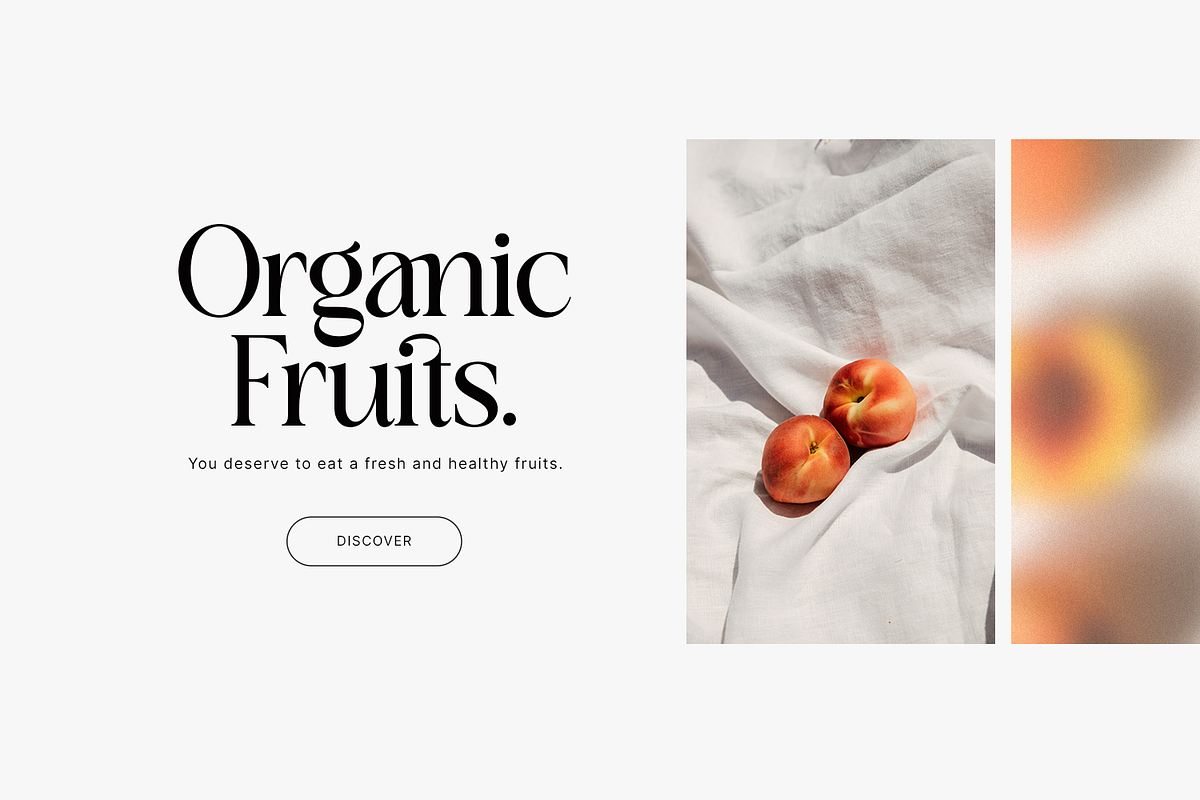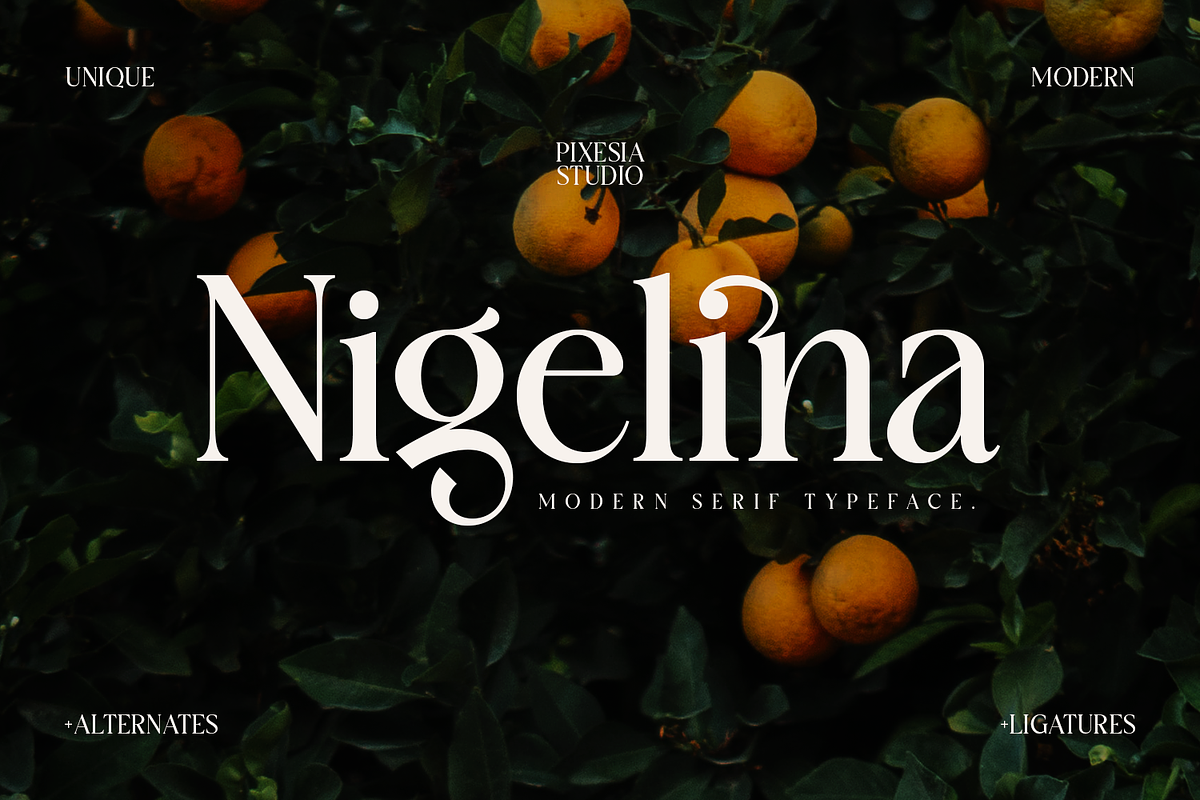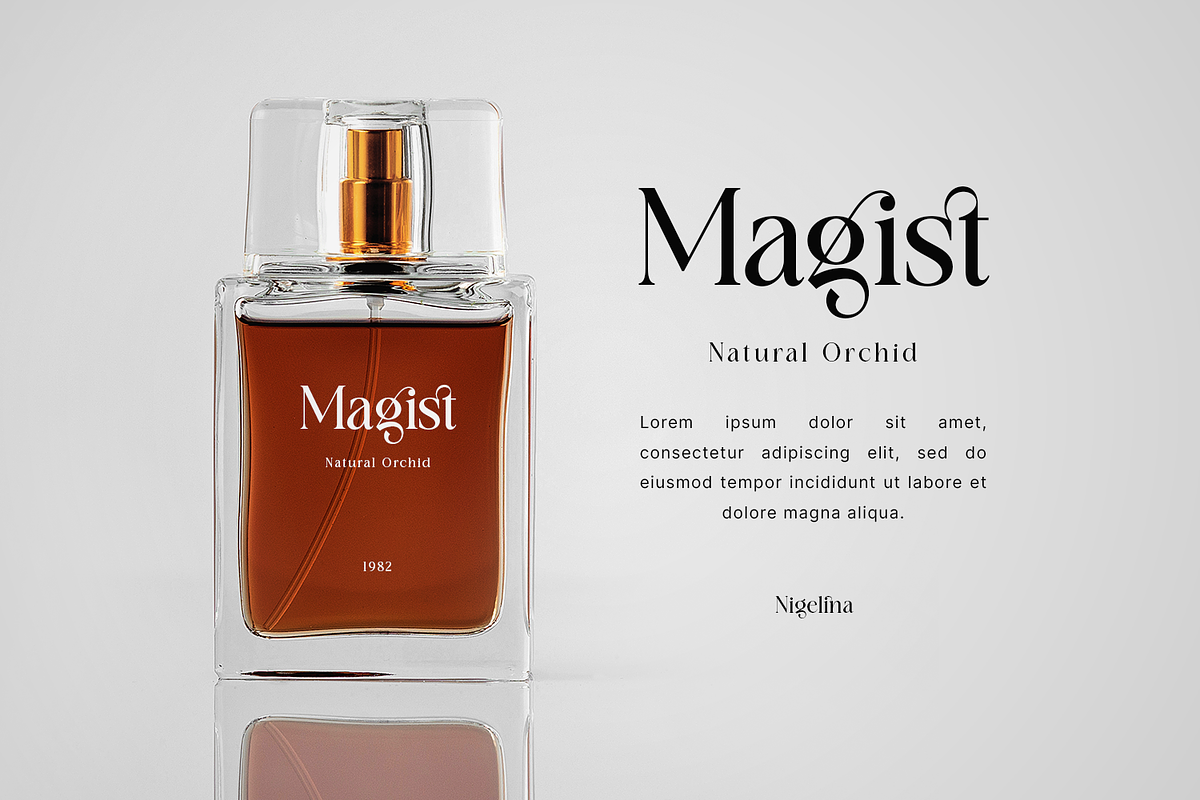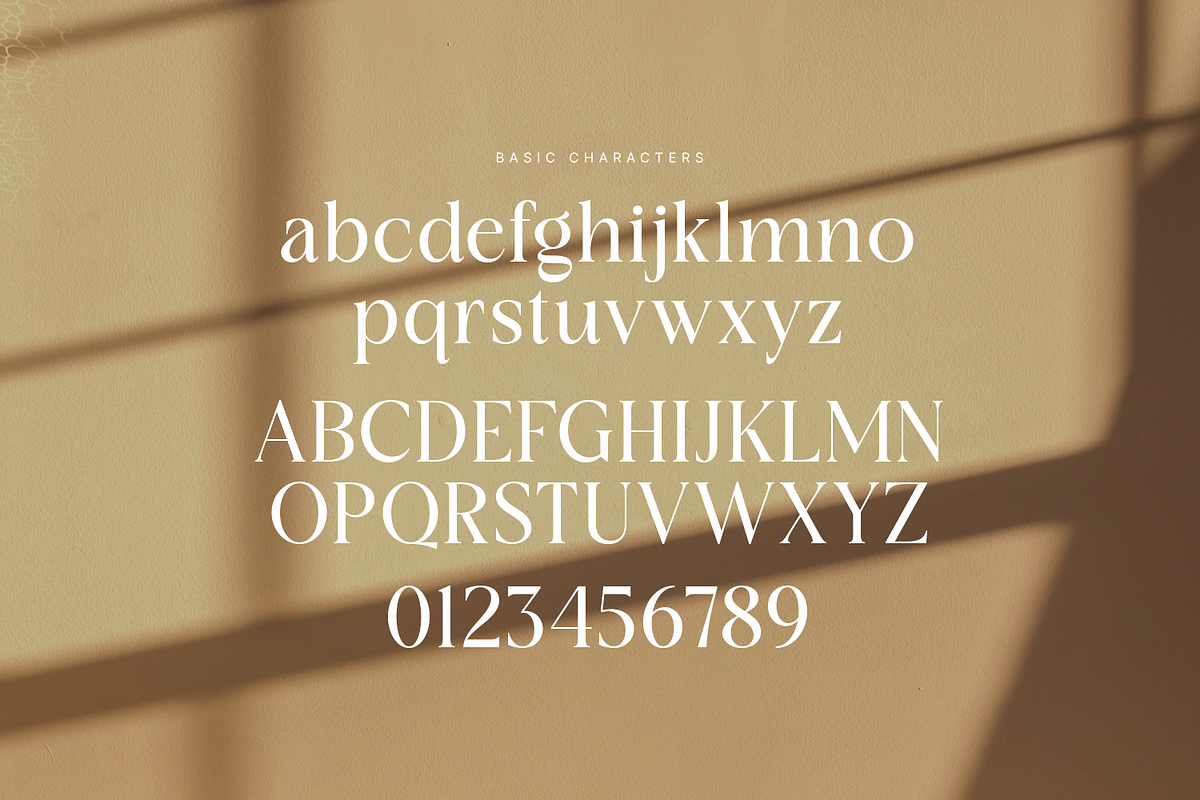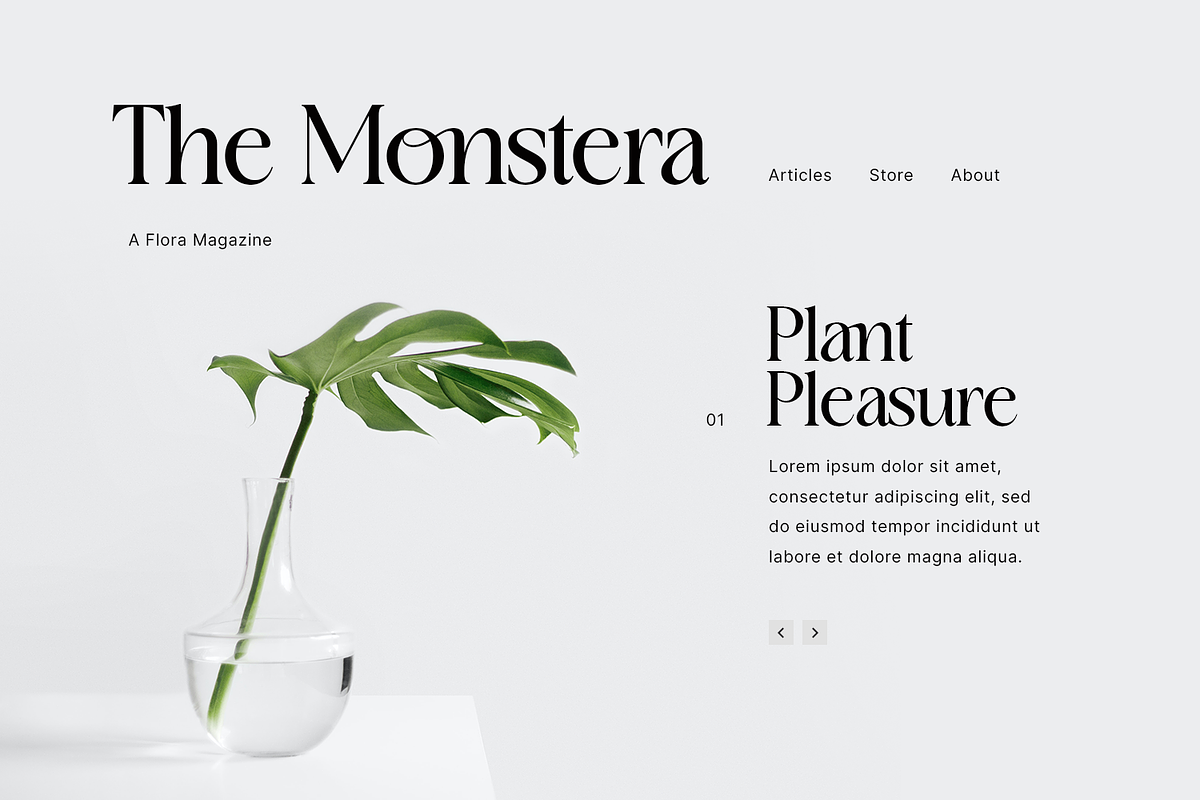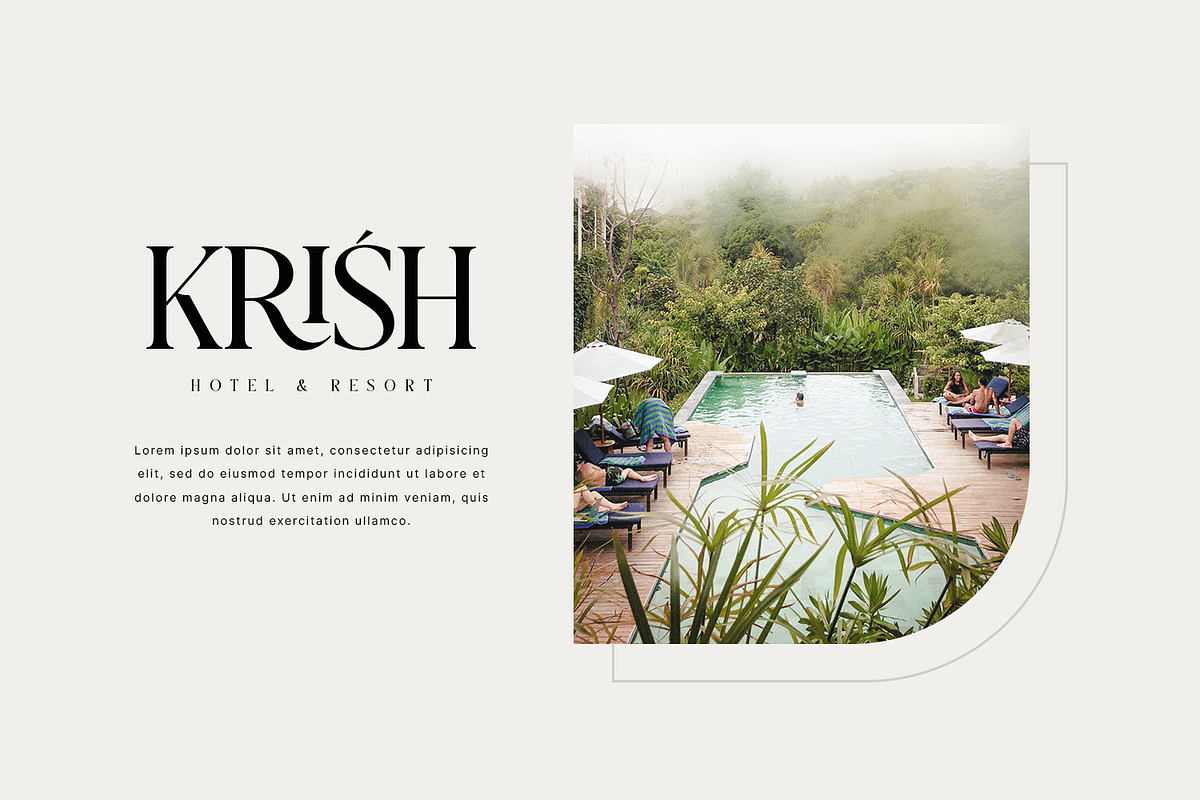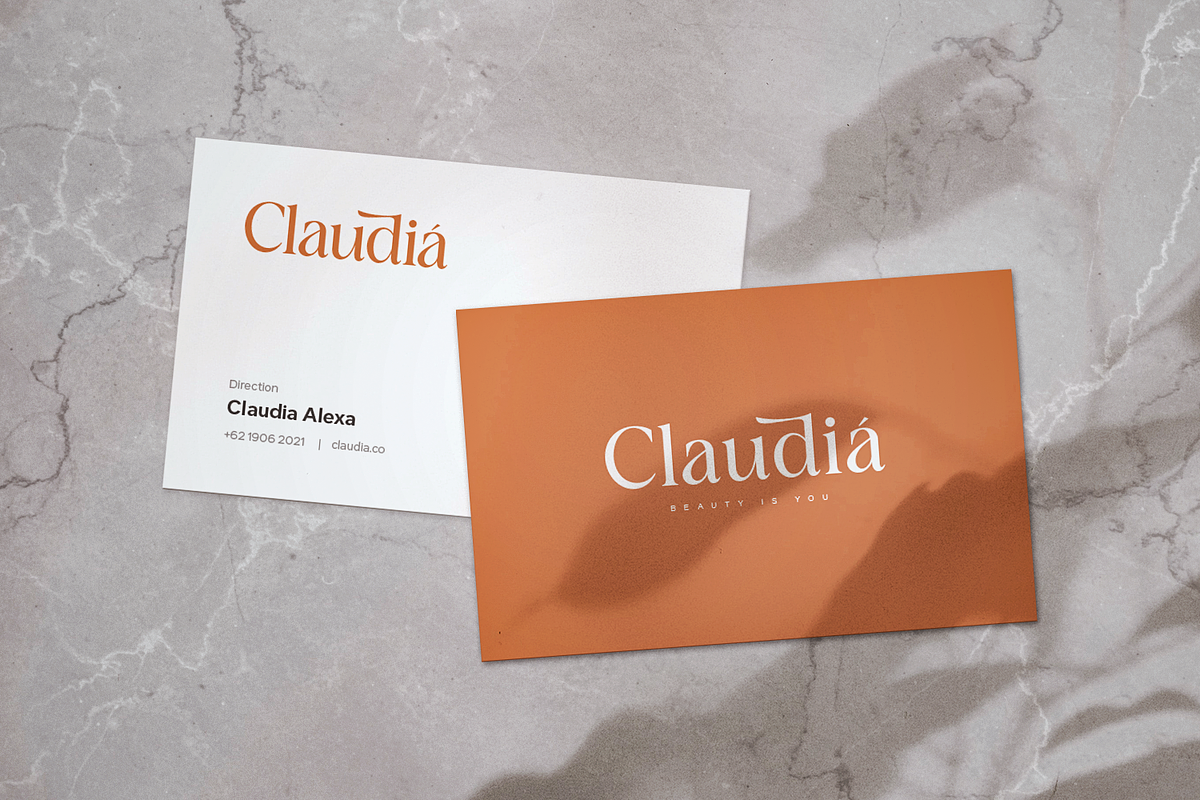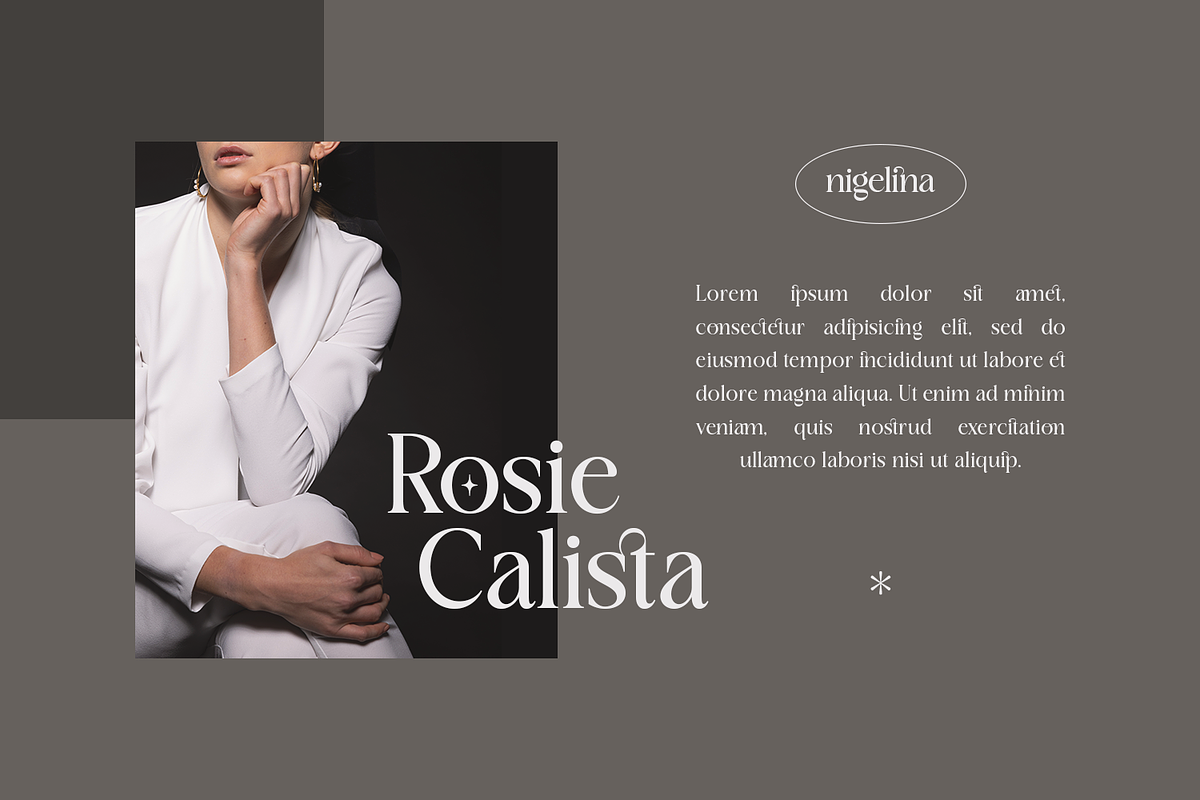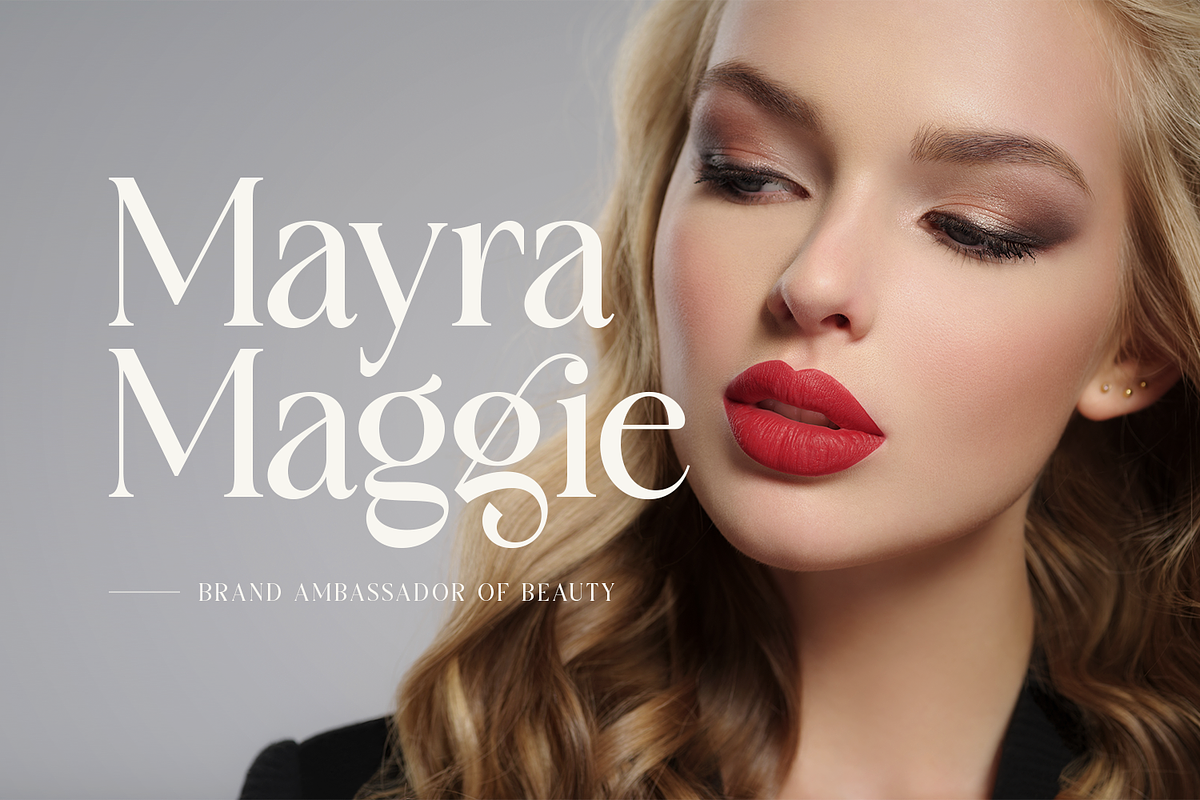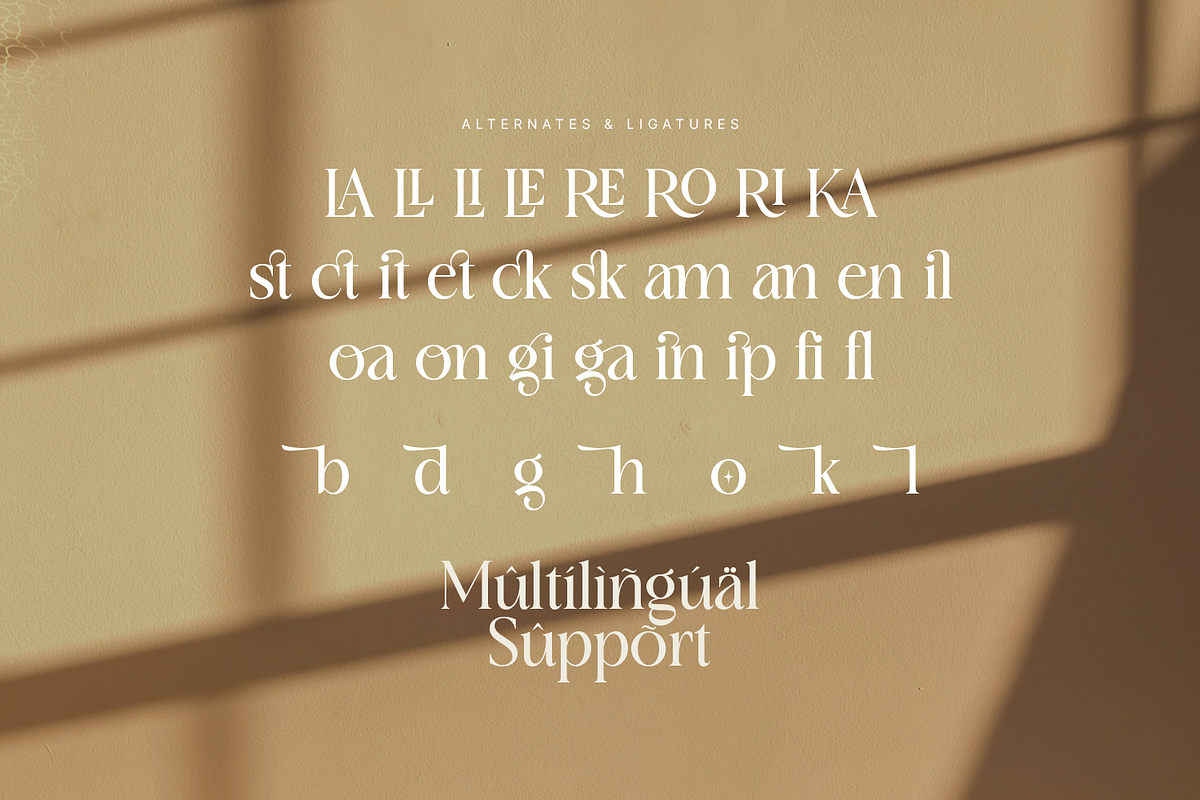
Nigelina - Modern Vintage Serif
Introducing Nigelina - Modern and Vintage Serif Font
Nigelina is a modern and vintage serif display font that looks unique, feminine and give a luxurious feel. This modern font has soft swasher and smooth curves that give any project an extra touch class. This typeface would look great embossed on logos & branding, invitations, stationery, wedding designs, social media posts, advertisements, printed quotes, product packaging, product designs, labels, photography, watermarks, special events or even magazine layouts.